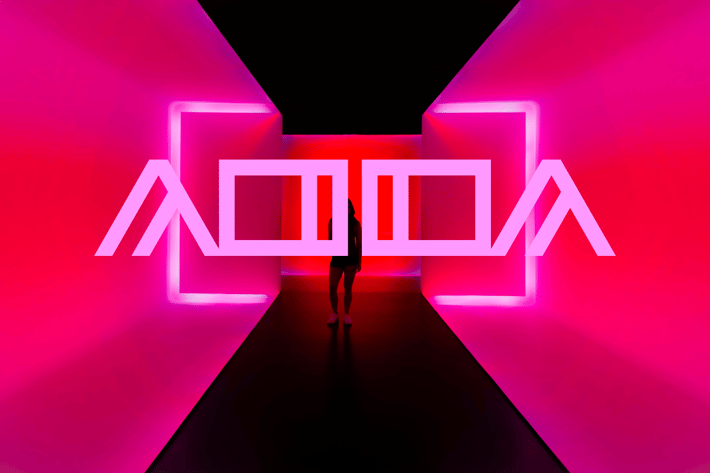
AODA Font
Introducing our new product AODA Font - Modern Font
AODAFont - Modern Font is a bold and authentic display font. The font is suitable for any branding project like logo, t-shirt printing, esport, and many more. outstanding in a wide range of contexts.